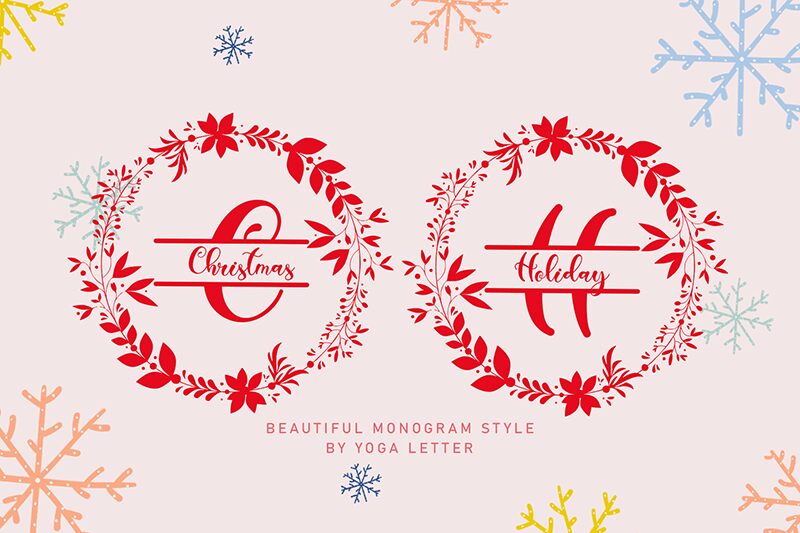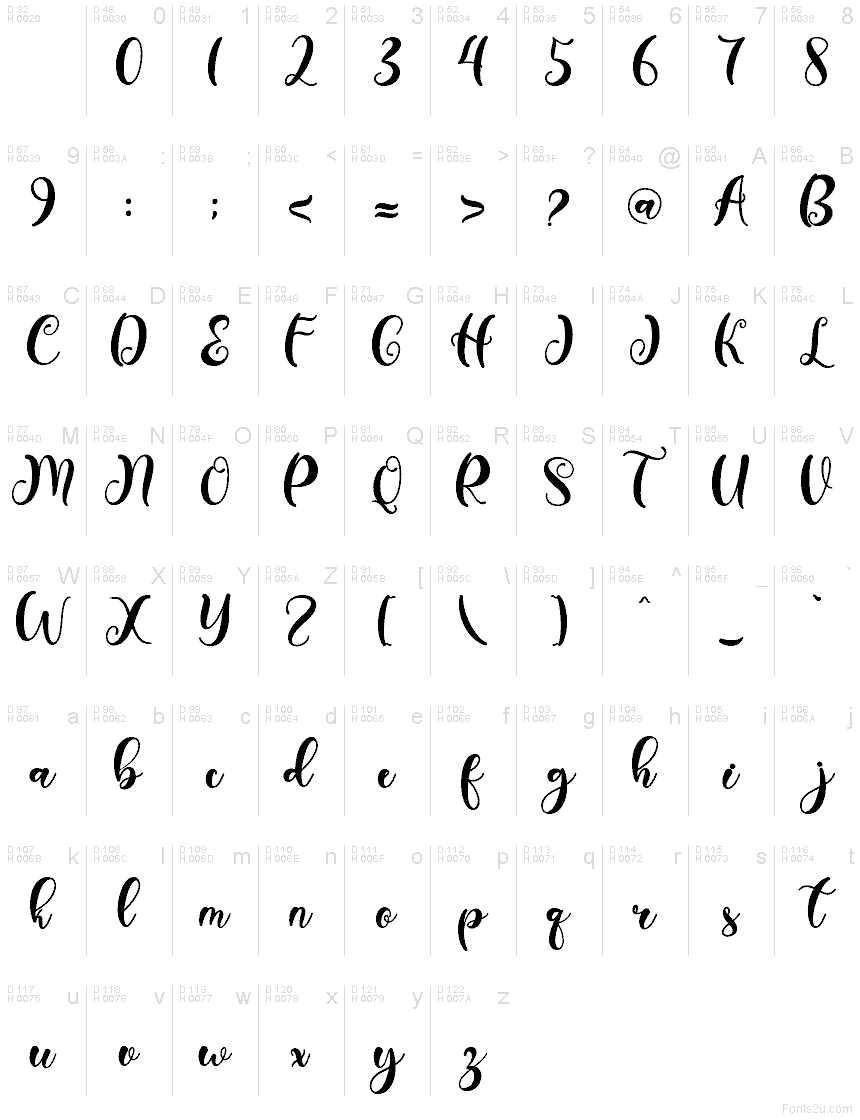
Christmas Holiday Monogram
Christmas Holiday Monogram font by Yoga Letter is a free calligraphy typeface that captures the cozy, handwritten feel of festive cards and gift tags. Its flowing strokes, generous loops, and slightly bouncy rhythm look like ink brushed onto smooth cardstock, giving every word a warm, personal touch. The letters connect gracefully without feeling stiff, so names, initials, and short holiday phrases feel lush and celebratory rather than overdone.
Using Christmas Holiday Monogram, you can easily dress up Christmas cards, monograms, ornaments, mug designs, party invitations, printables, social media graphics, and holiday packaging. This free font shines on names and short quotes set large, with plenty of white space to let the curls breathe. Pair it with a clean sans serif for dates and small text to keep your layouts readable while the calligraphy handles all the seasonal sparkle.